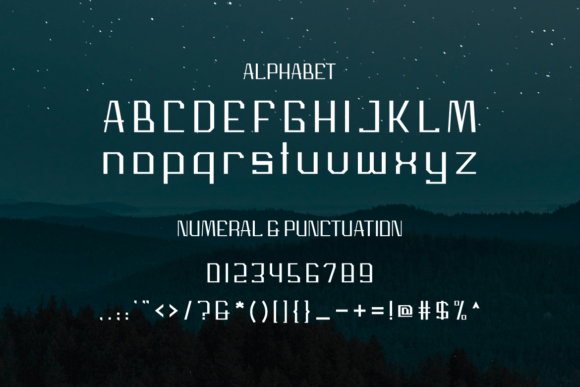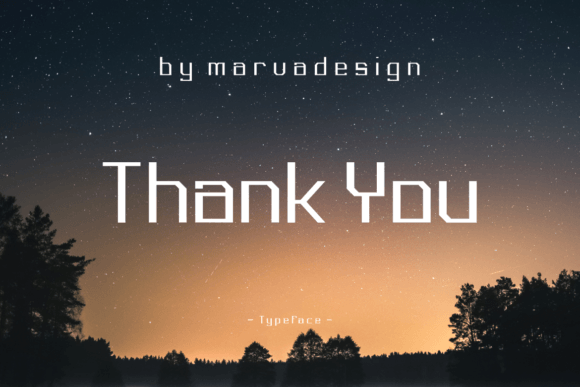
Introducing Beemo Font: Elevate Your Designs with a Unique and Stylish Touch
In the world of design, fonts play a crucial role in conveying messages, expressing emotions, and creating a lasting impression. Among the numerous fonts available, Beemo Font stands out as a unique, stylish, and modern display font that can instantly elevate your designs. Whether you’re a designer, crafter, or simply someone who loves to dabble in creative projects, Beemo Font is a wonderful asset to have in your font library.
What Makes Beemo Font Special?
Beemo Font boasts a distinctive style that sets it apart from other fonts. Its modern design and sleek lines make it perfect for creating eye-catching headlines, titles, and captions. The font’s versatility allows it to be used across various topics and themes, from fashion and beauty to technology and lifestyle. Whether you’re working on a branding project, a social media campaign, or a personal craft, Beemo Font can add a touch of sophistication and elegance.
Key Features of Beemo Font
- Unique and Stylish: Beemo Font features a one-of-a-kind design that’s sure to grab attention.
- Modern Display Font: Perfect for creating bold and eye-catching headlines, titles, and captions.
- Versatile: Suitable for various topics and themes, from fashion and beauty to technology and lifestyle.
- Elegant and Sophisticated: Adds a touch of refinement and luxury to any design.